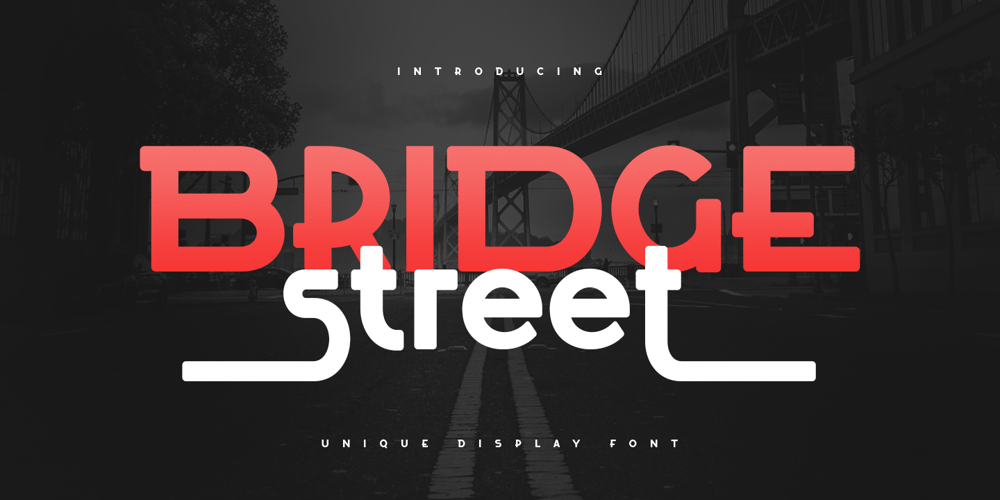
Bridge Street Font Family was designed by Zamroni Hamzah and published by Sensatype Studio. Bridge Street contains 1 styles and family package options. Bridge Street is a Unique Display Font with Floating shape make your design look unique and modernA new Display Font that we created special for Headline, Title and more stand out typography needs, with extra ligature that will add your variations. It’s so perfect to add your style and headline overview. And specially for this font, we crafted for unique style and modern feels so enjoy to create any project that will show your main idea out.Bridge Street Unique Display Font ready with: Any options to get creative variations (combination of Ligature Characters) 4 files format already Preview as a inspirations that you can do with this font Ready with All characters Wish you enjoy our font. ๐